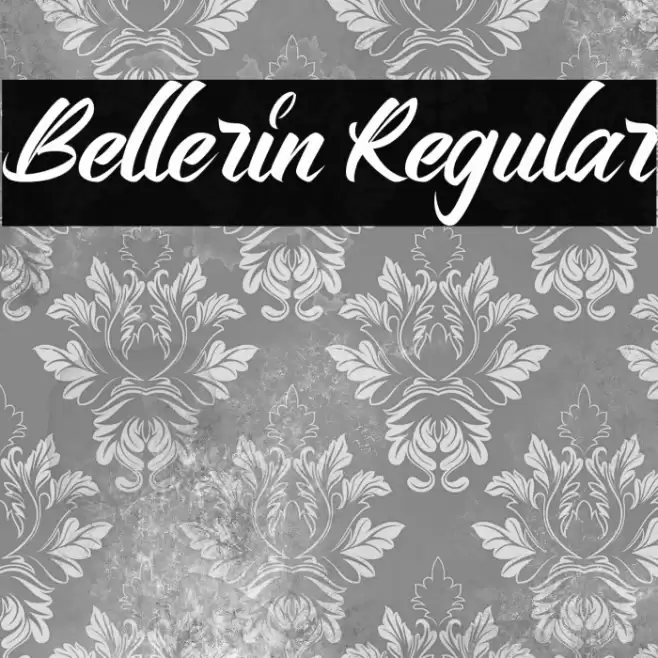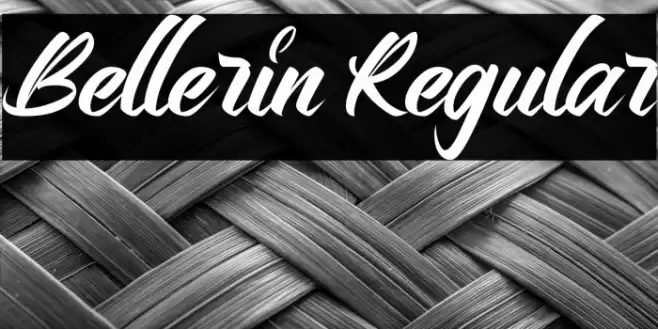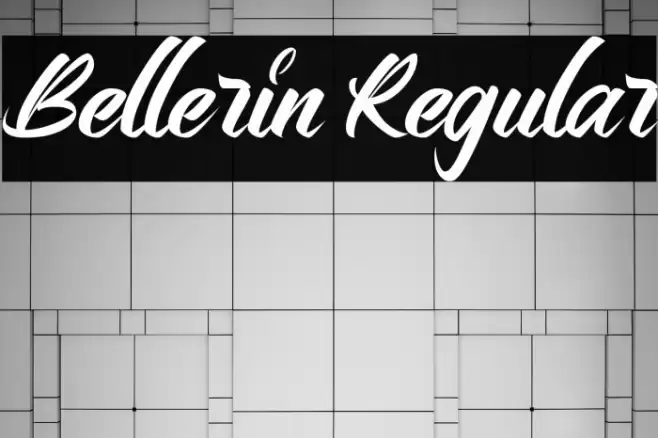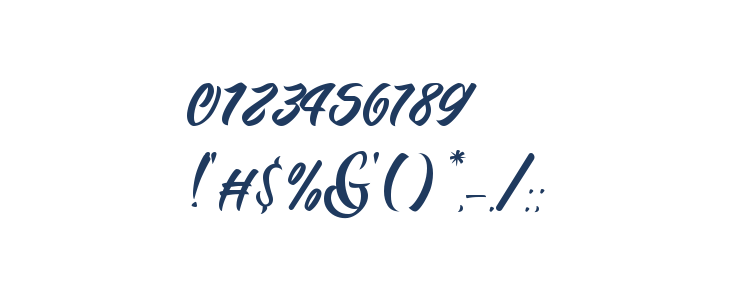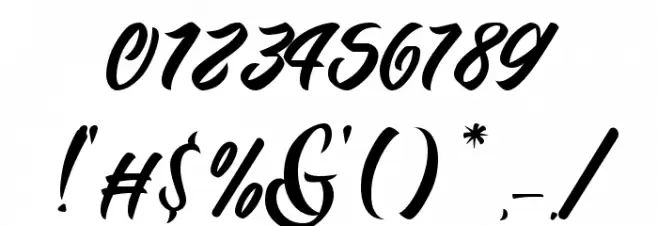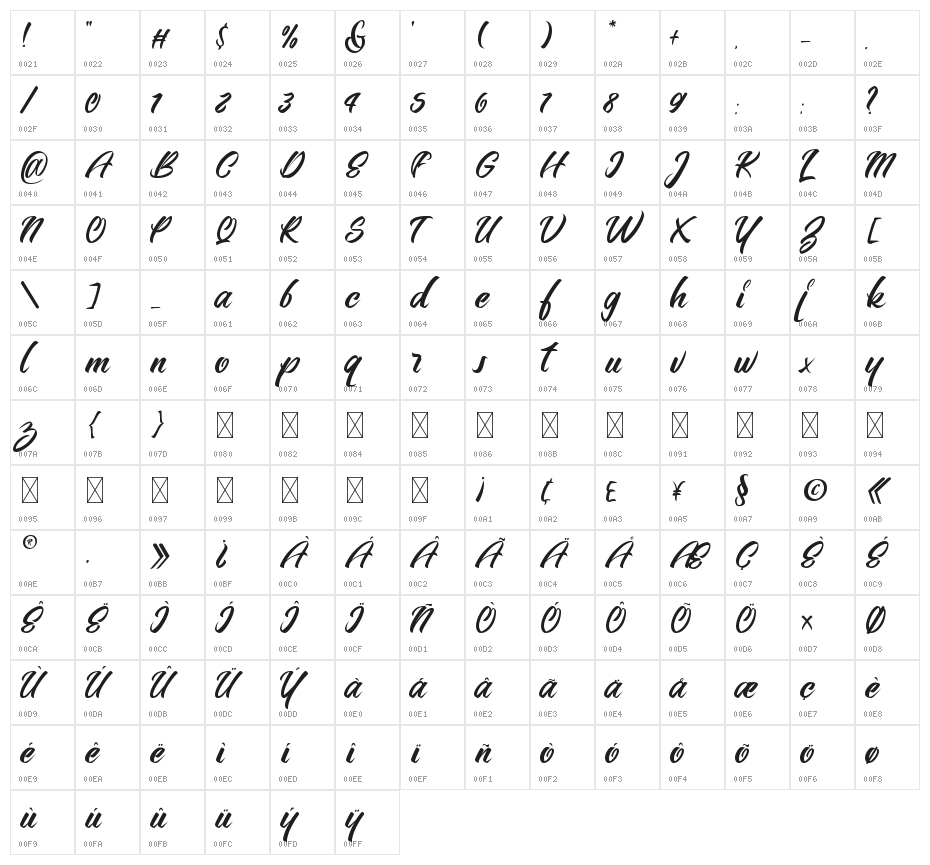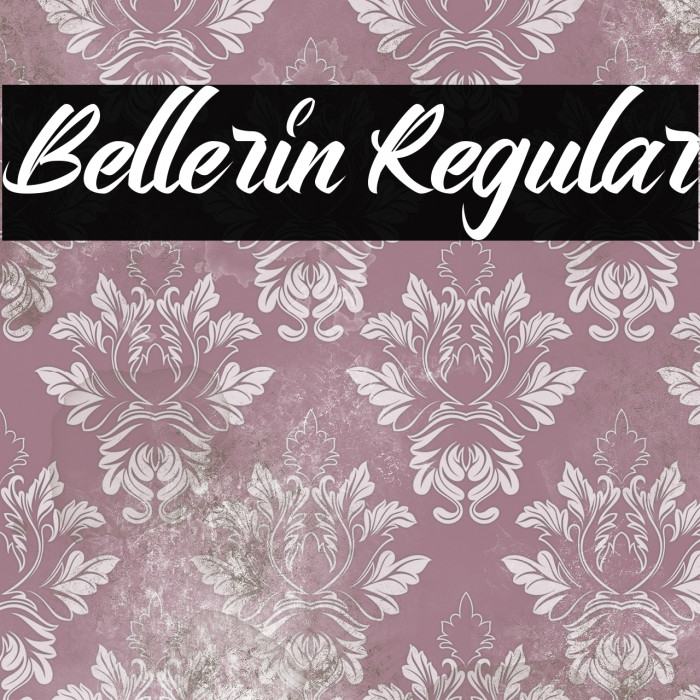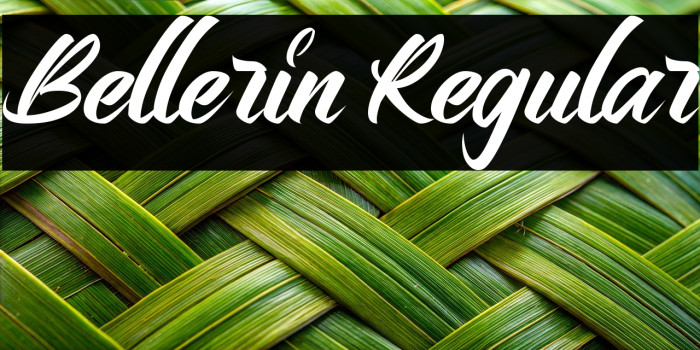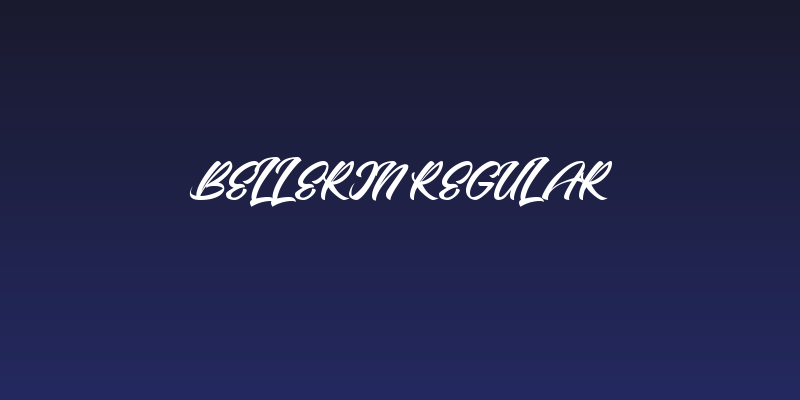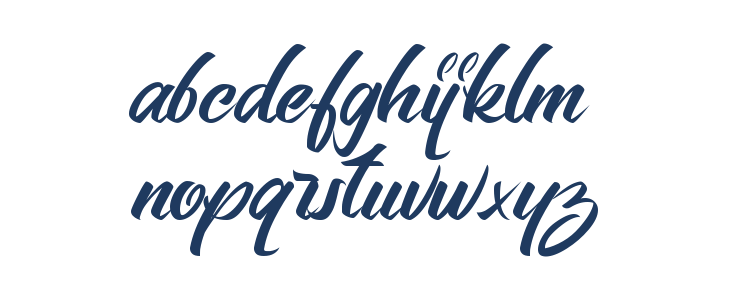
Bellerin Regular Font
Bellerin Regular Description
This font features a dynamic and flowing script style, characterized by its elegant curves and smooth connections between letters. The uppercase letters are bold and prominent, with a slight slant that adds a sense of movement and grace. The lowercase letters maintain a consistent flow, enhancing readability while preserving the artistic flair. Numbers are equally stylized, matching the overall aesthetic of the font. Special characters are creatively integrated, maintaining the cohesive look. This font's design is ideal for projects that require a touch of sophistication and elegance.
A dynamic and elegant script font with smooth, flowing connections from Regular fonts.
- Font: Bellerin Regular
- Proposed Projects: Ideal for wedding invitations, branding, logo design, and elegant stationery.
- Overall Style: Elegant, Decorative
- Use Case: Logos, Invitations, Branding